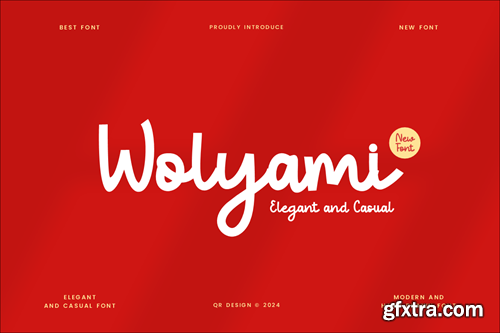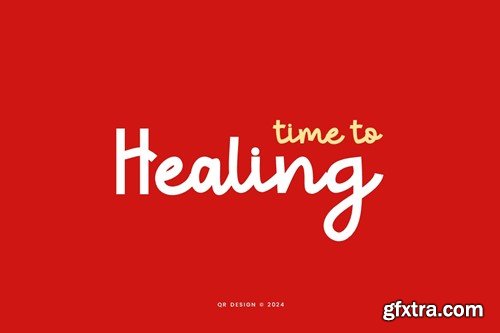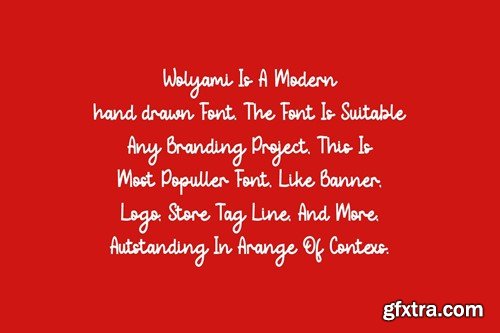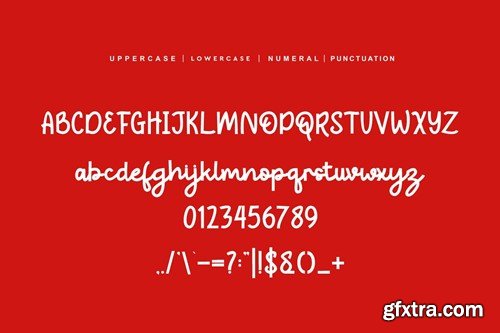
Wolyami - Elegant & Casual Font FF4L6VM
Wolyami Font is a hand drawn and authentic display font.
The font is suitable for any branding project like poster, logo, sport,
and many more. Outstanding in a wide range of contexts.